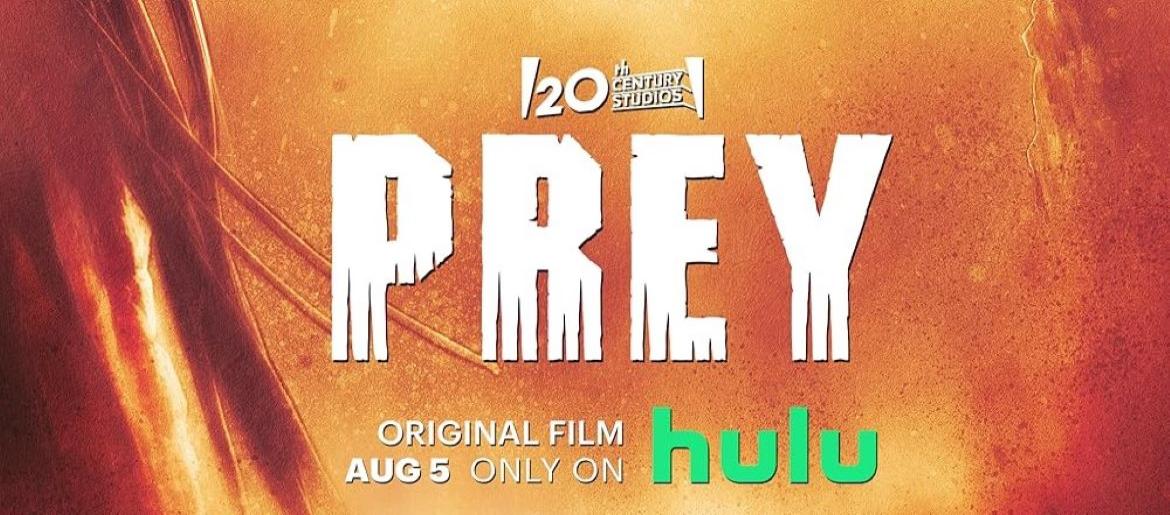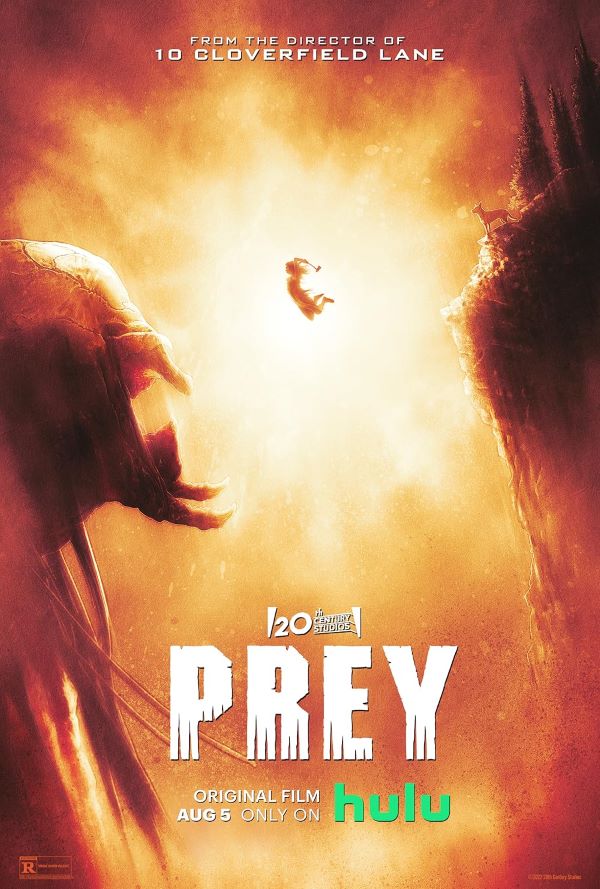
Prey Font
What Font is Prey?
The Prey Font used in the title of the film is likely the typeface Kuhtaamia, a bold display font designed for large-size use with a distinct distressed, slashed aesthetic that evokes the film’s intense, primal tone.
About Prey
Prey (2022) is a sci-fi action horror film set 300 years ago on the Great Plains, featuring the first confrontation between the Yautja (Predator) and a Comanche warrior named Naru. The film emphasizes survival, transformation and prehistoric courage. The font captures this raw intensity: the wide letterforms and jagged, weapon-like slashes in the characters reflect the danger and conflict at the heart of the story. Because Kuhtaamia is available with a free personal-use licence, it offers an accessible way to recreate the bold, cinematic look tied to the film’s branding.